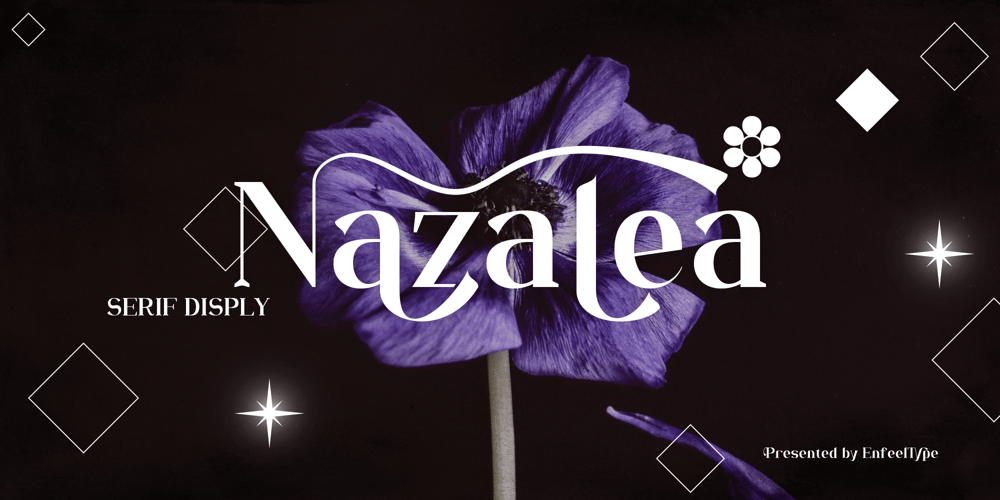
Nazalea Font Family was designed by Muhammad Naufal and published by Enfeeltype. Nazalea contains 18 styles and family package options. An elegant and artistic typeface, with an alluring touch. Created with refinement and elegance in mind, this font features a design that combines serif elements with a mesmerising modern twist.With soft yet firm lines, each letter in Nazalea font has a captivating beauty. Every curve and angle is created with a beautiful and harmonious feel. Each character displays balanced proportions and alluring details, reinforcing the overall impression of radiating elegance.The font is suitable for a variety of design purposes, from wedding invitations to promotional materials, with its ability to add a touch of class and elegance to any project. Nazalea gives off a luxurious and exclusive feel, while still maintaining a clear and easy-to-understand readability. With its unrivalled beauty, Nazalea font is the perfect choice to add a special touch to any of your design work.